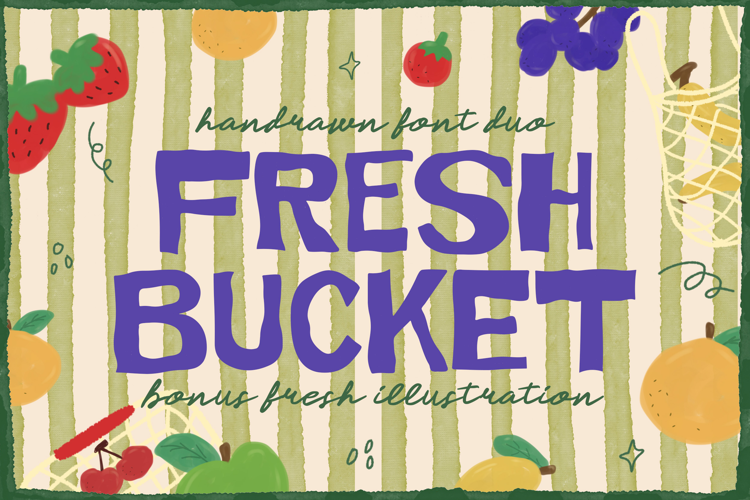
Fresh Bucket - Handwritten Font Duo
Introducing Fresh Bucket - a synesthetic fusion of the touch and visuals. With its natural handwritten style and charming imperfections, this unique font duo brings an artisanal appeal to your designs. Like a juicy surprise, Fresh Bucket comes with a delightful bonus - a set of beautifully illustrated fresh fruit (SVG & PNG). Its playful character and rustic charm blend well to give your projects a breath of freshness that resonates with your audience. Perfect for a wide range of designs that cherishes humanity’s tactile and visual experiences.